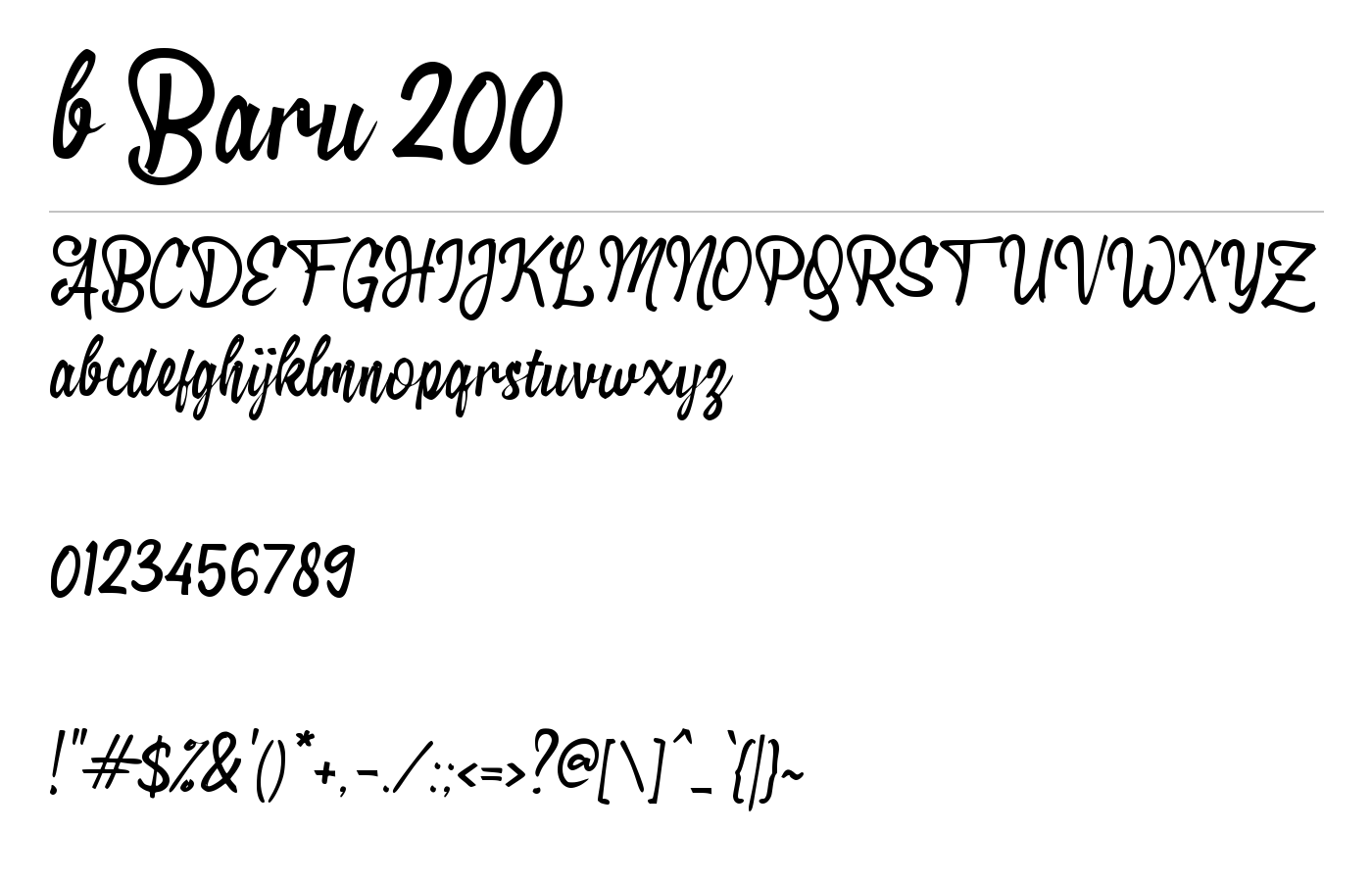
b Baru 200 is a lively and elegant script font that combines handwritten charm with a smooth, flowing style. Its medium weight and slanted, brush-like strokes give it a playful yet refined feel, making it ideal for branding, invitations, and creative headlines. This font’s unique letterforms and balanced spacing provide a friendly, personal touch that works well in both modern and vintage-inspired designs.
b Baru 200 Font
About b Baru 200 Font